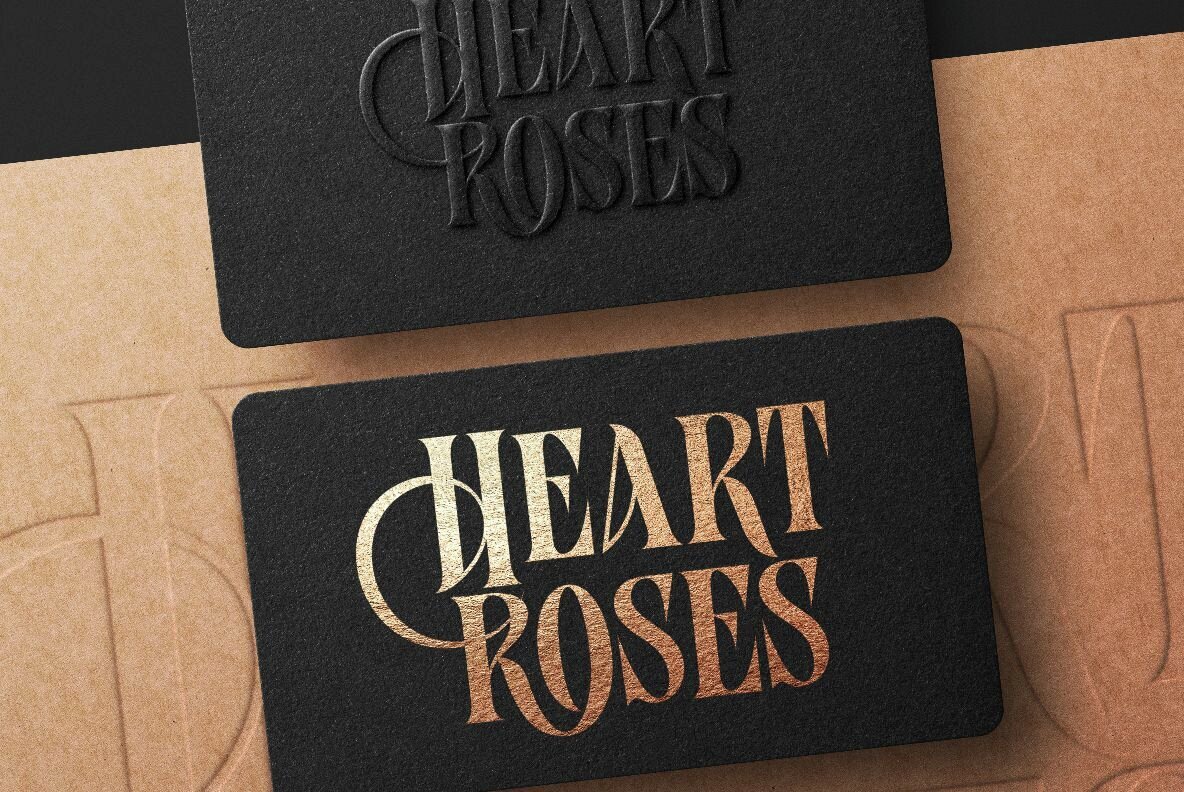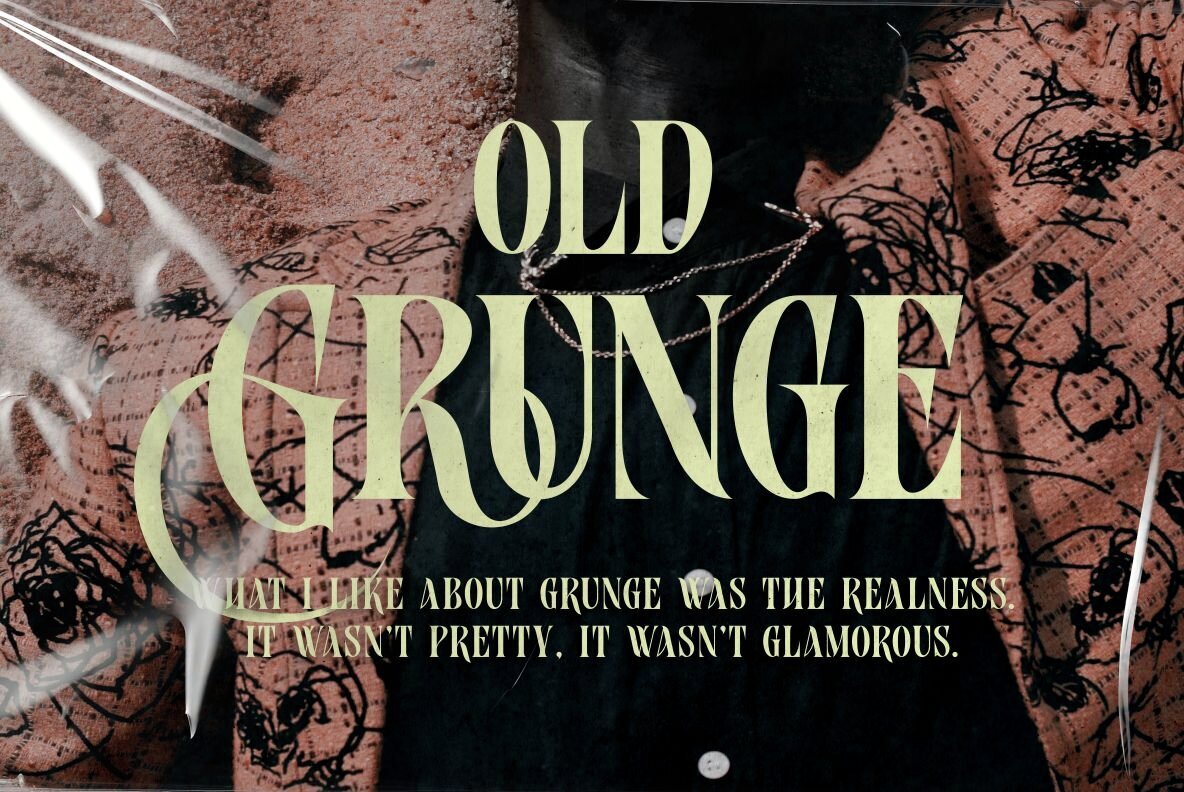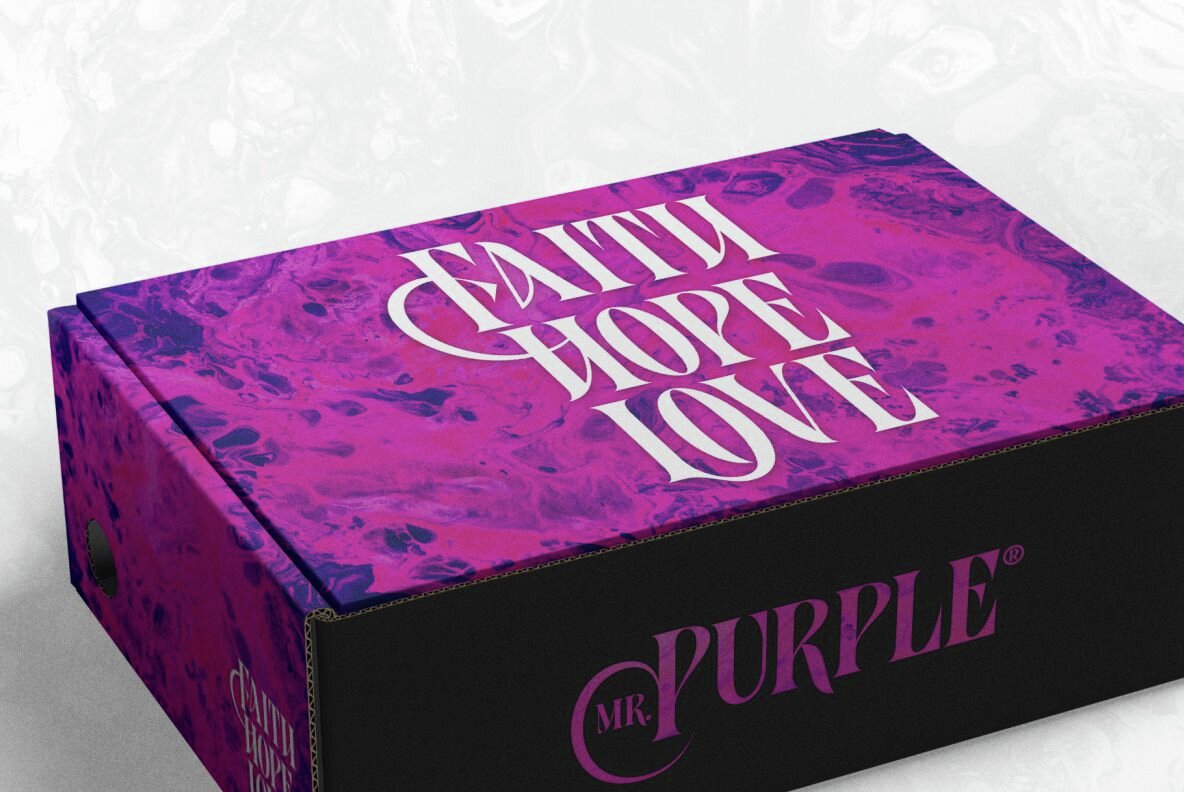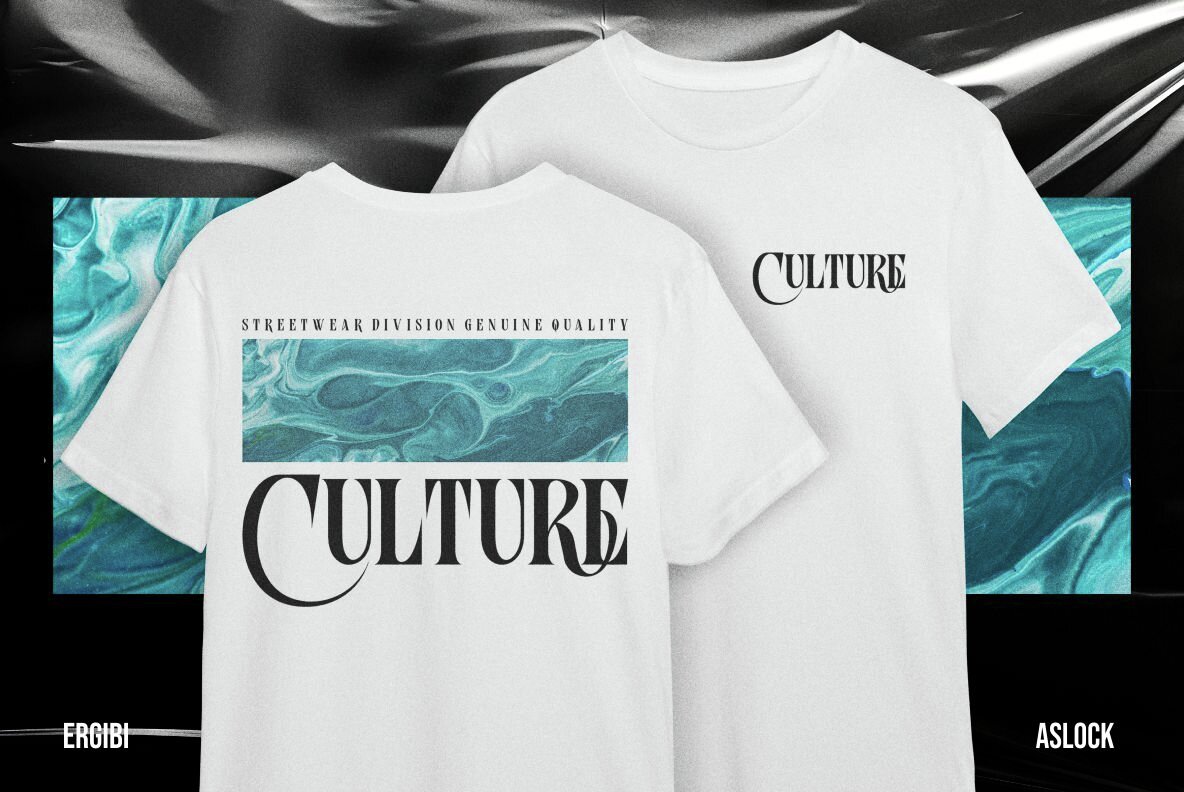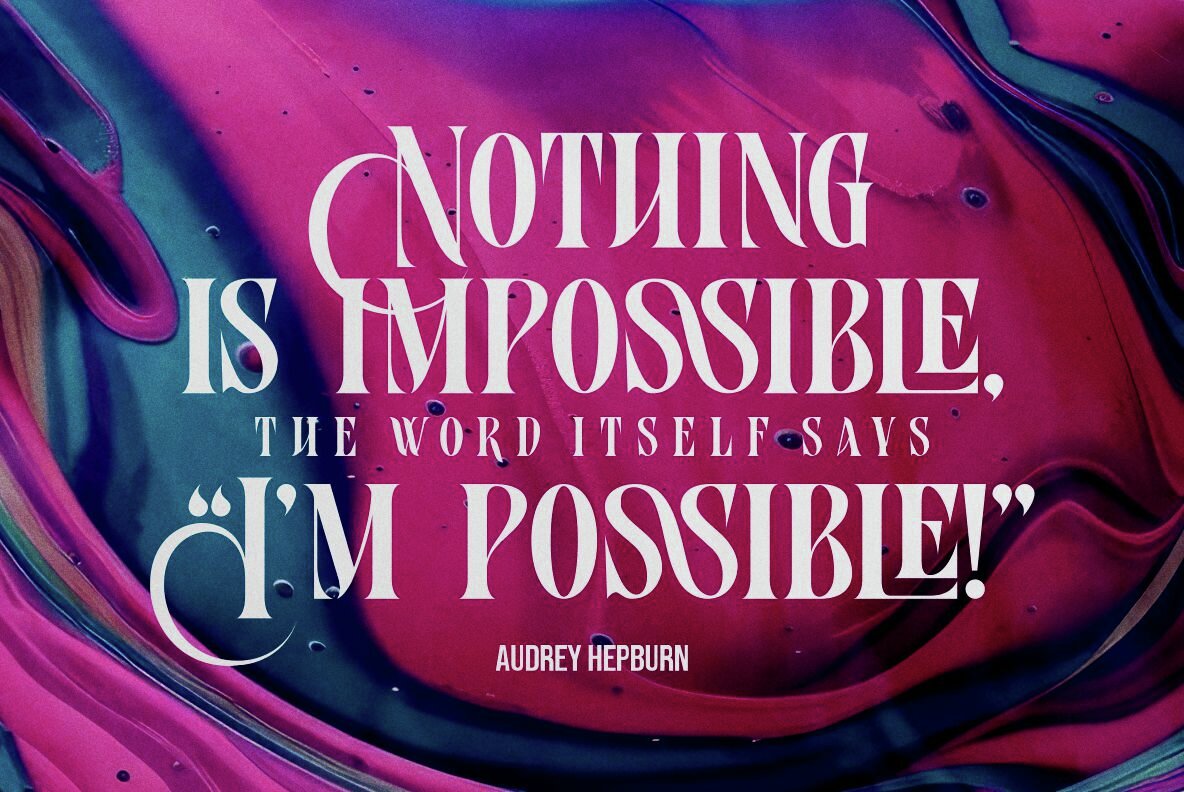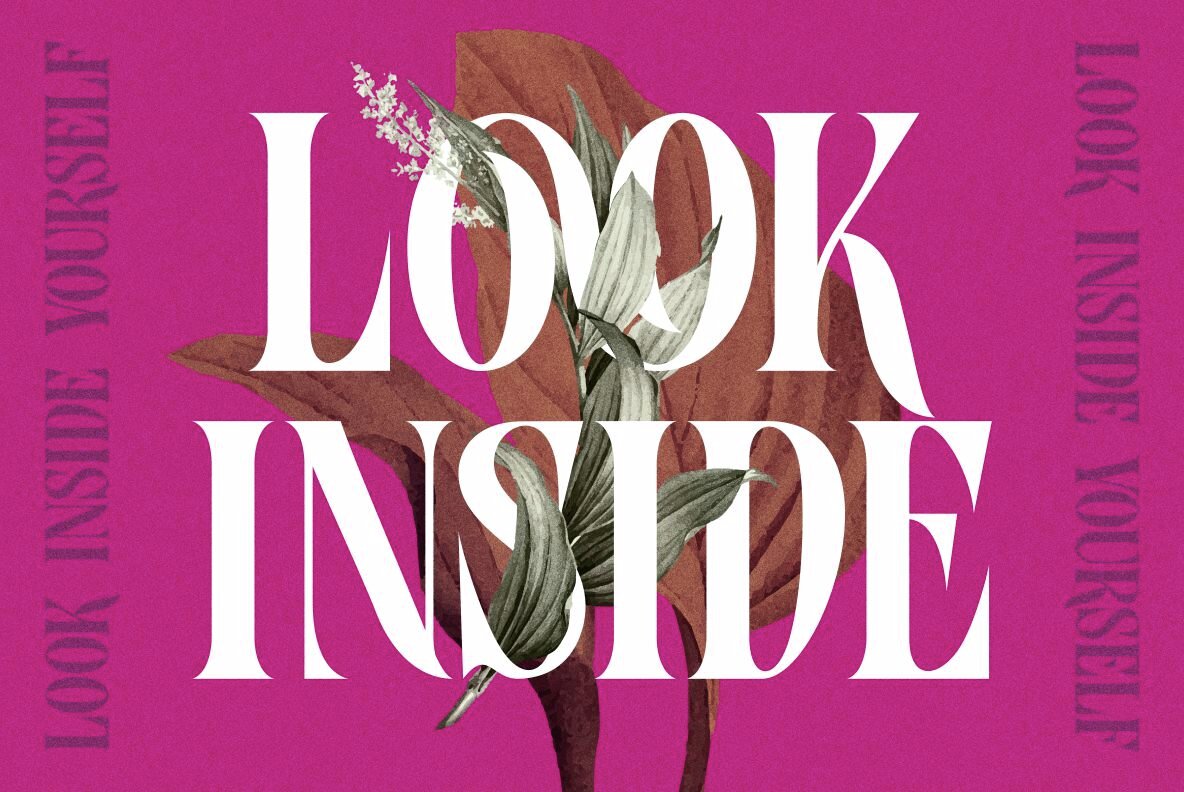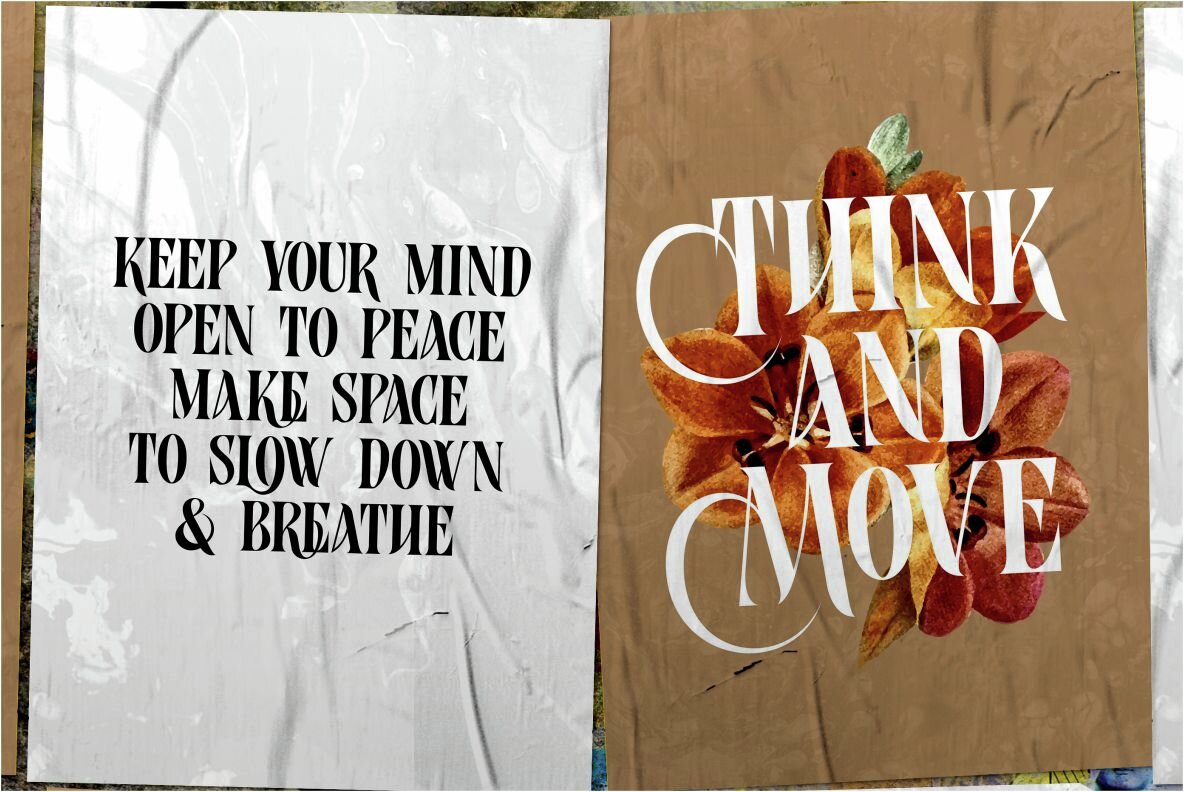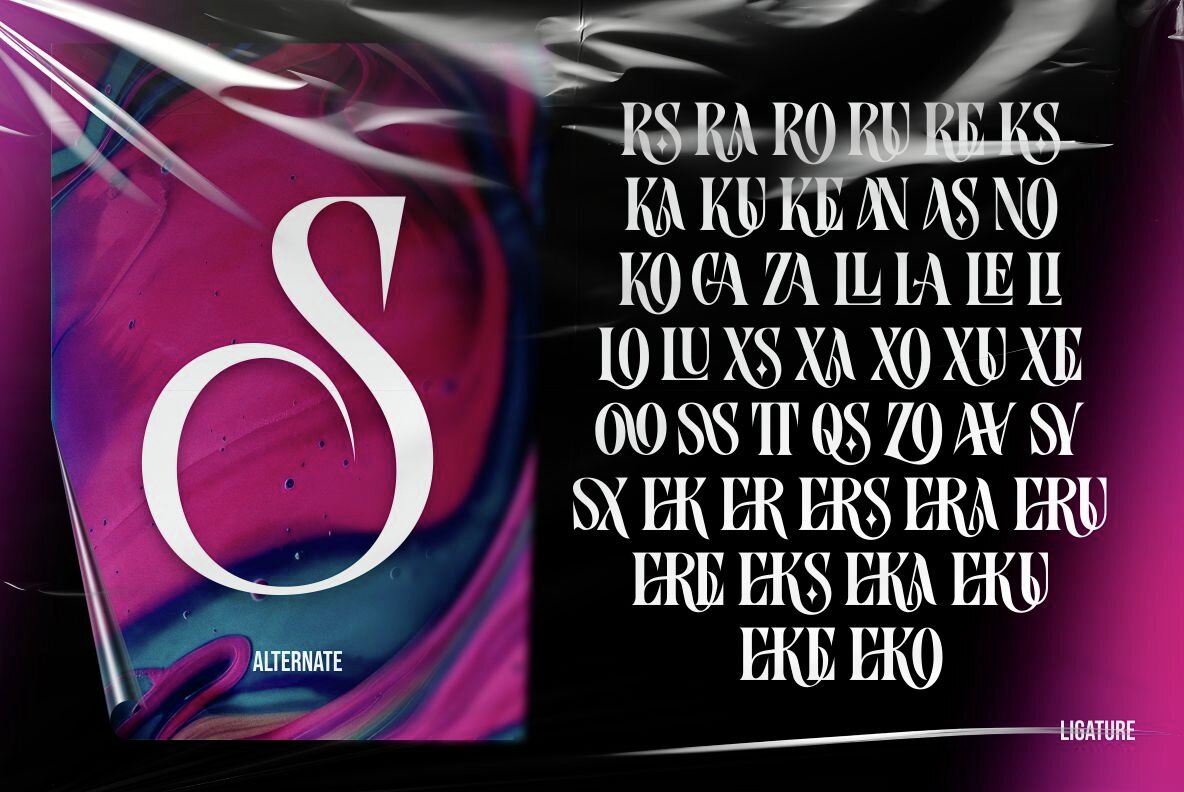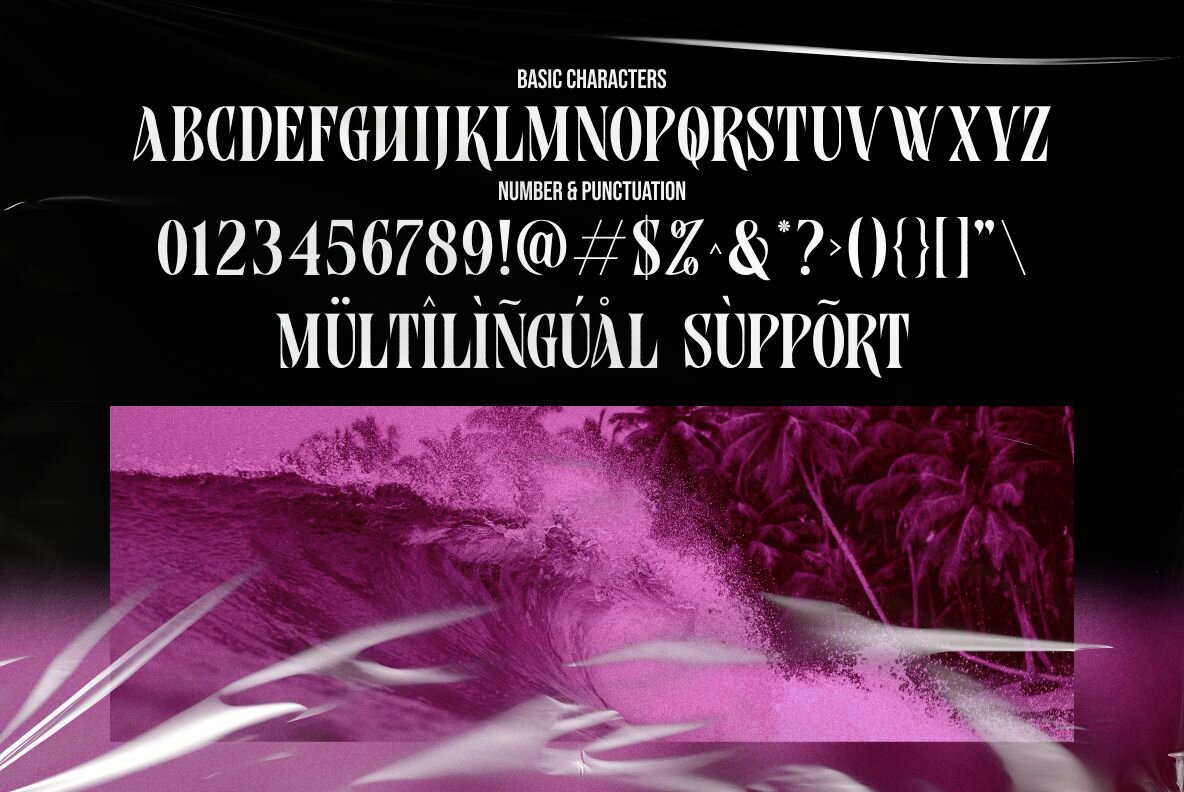
Aslock Font
Aslock Regular
Aslock, meticulously crafted by the esteemed Ergibi Studio, is the quintessence of elegance in the realm of display serif fonts. Radiating classic modern vibes, Aslock's graceful curves perfectly intertwine with its meticulous details, rendering an unsurpassable touch of sophistication that’s ideal for the discerning graphic designer or marketing firm.Introducing "Aslock" - The Display Serif Font that Captivates